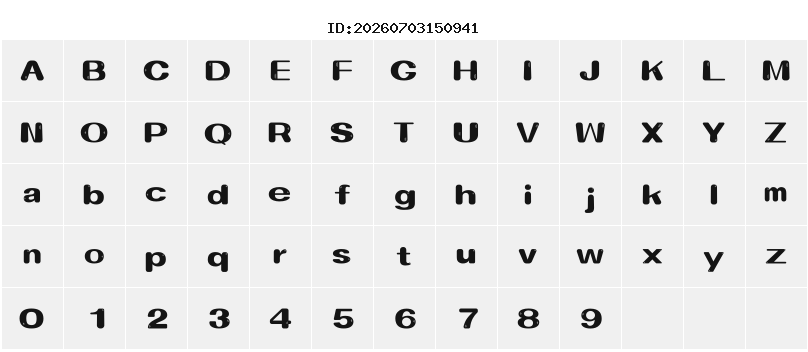
294-上首小新体 Preview
• Font Name: 294-上首小新体
• Font ID: 294-SSXiaoXinTi:Version 4.00
• Full Font Name: 294-上首小新体
• Version: Version 4.00 December 25, 2023
• PostScript Name: 294-SSXiaoXinTi
• Character Count: 7567
• Manufacturer: 上首造字
About 294-上首小新体.ttf
294-上首小新体.ttf is a modern, elegant sans-serif font designed for ultimate readability and visual harmony. Perfect for branding, headlines, web design, and print materials.